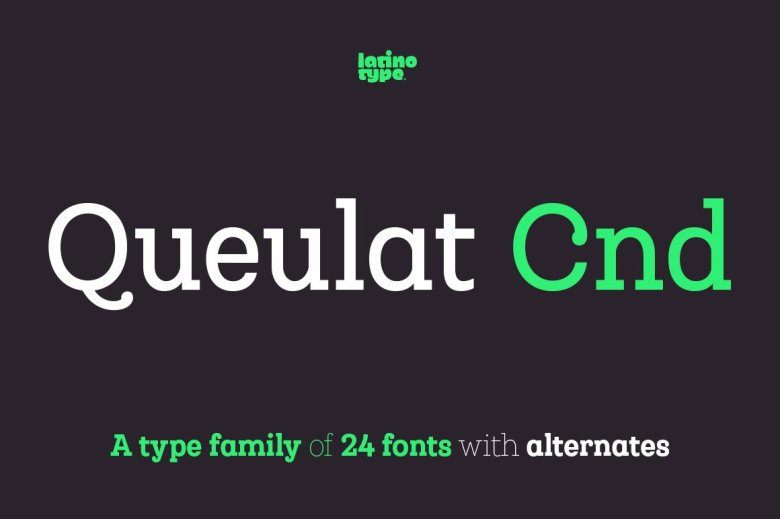
Queulat Cnd Font Family
Queulat Cnd Font
Queulat Font Cnd Family is a slab serif font – designed by Latinotype. Queulat Font is a hybrid typeface that combines two different styles, reflecting charm, freshness and, especially, a strong personality.
The font is inspired by Modern and Grotesk styles. The former is shown in some characteristic features such as teardrop terminals, which give the typeface an attractive unique look, making it an ideal choice for logotypes and labelling. The latter, with its rationality, makes Queulat a stable and strong face for headings and subheadings.